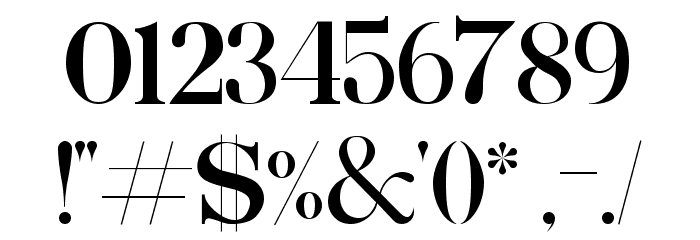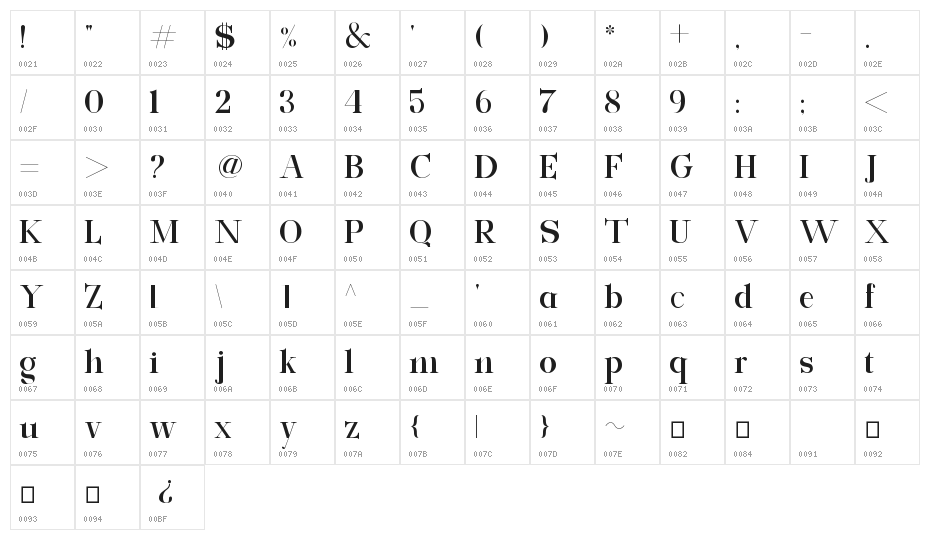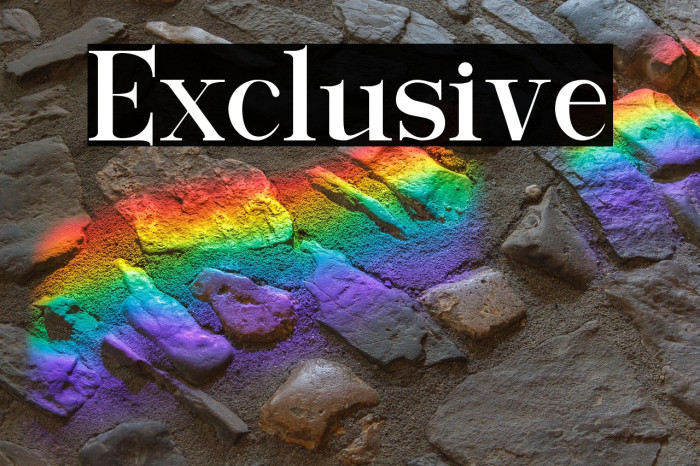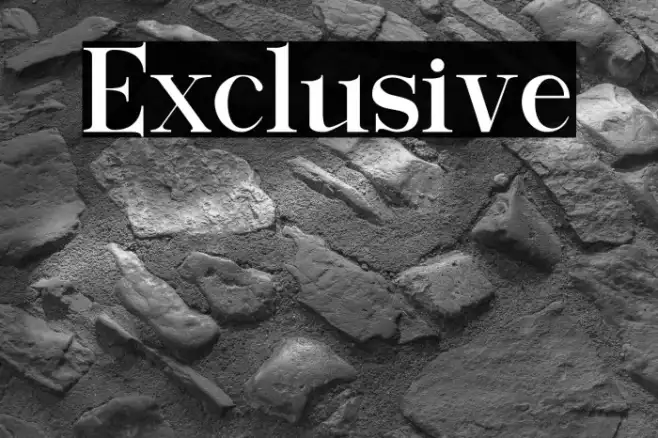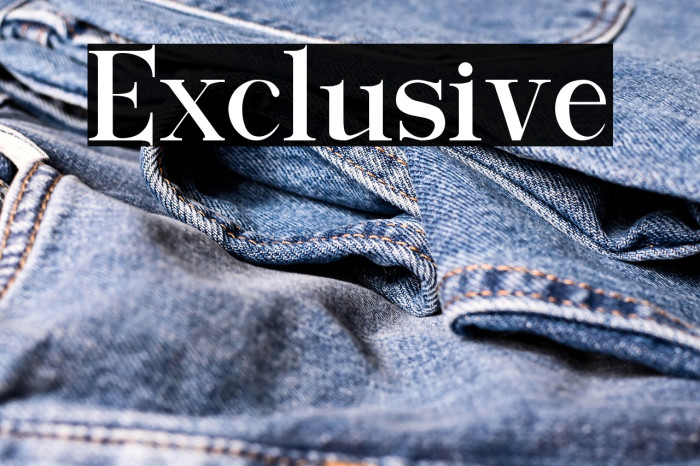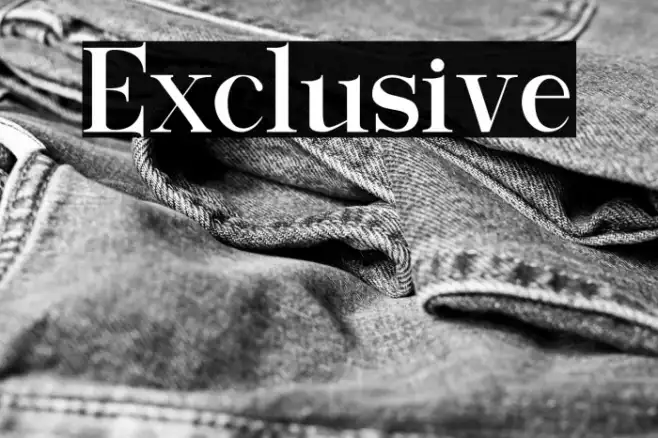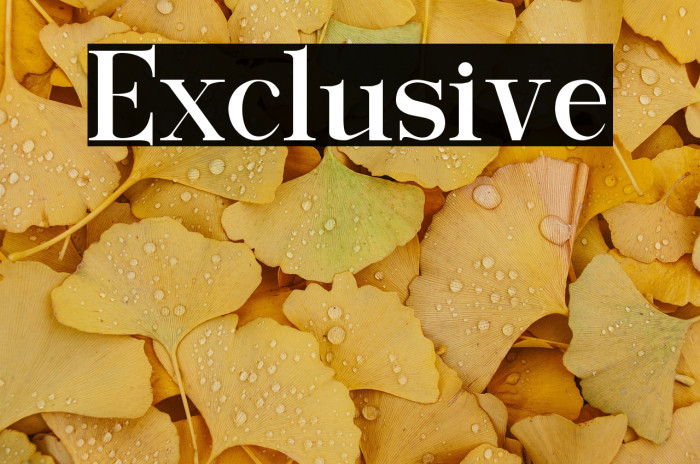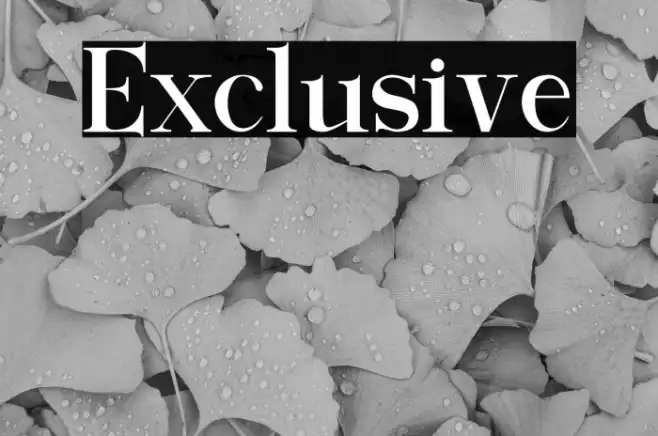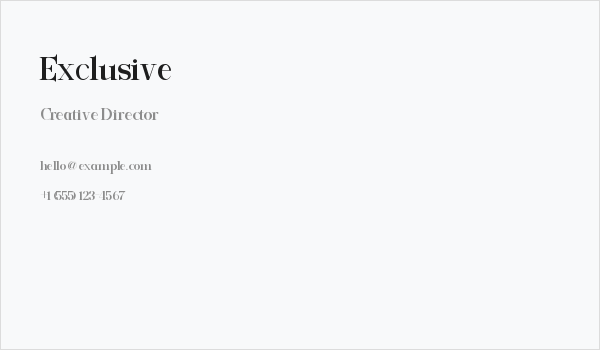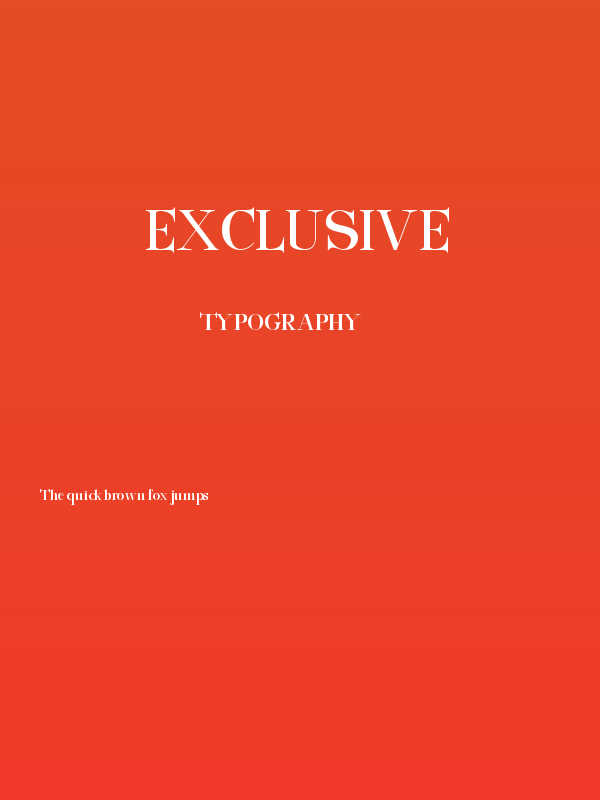
Exclusive Font
Exclusive Description
This font features a classic serif style with elegant and refined strokes. The uppercase letters are bold and commanding, with distinct serifs that add a touch of sophistication. The lowercase letters maintain a consistent style, offering a harmonious balance between the thick and thin strokes. Numbers are clear and legible, making them suitable for various applications. The special characters are well-designed, complementing the overall aesthetic of the font. This typeface exudes a timeless elegance, making it ideal for projects that require a touch of class and tradition.
| Use Case | Headlines, Editorial design, Book covers |
| Proposed Projects | Ideal for editorial design, book covers, formal invitations, and branding projects that require a classic touch. |